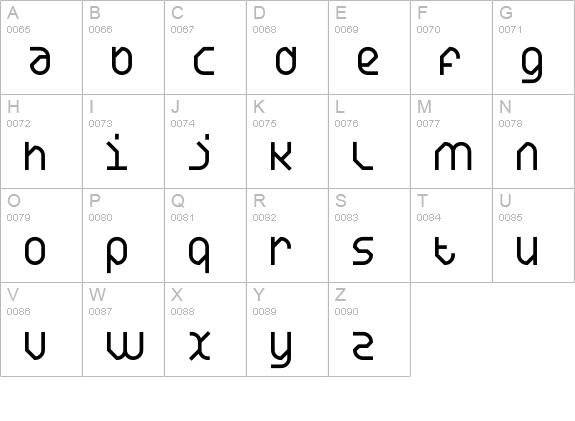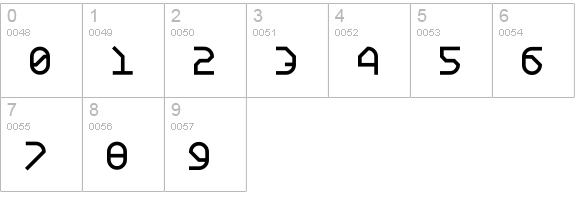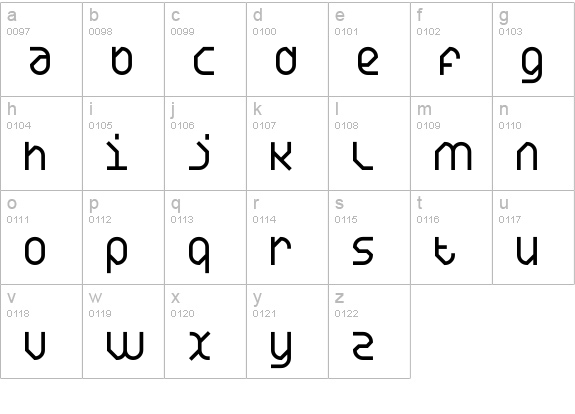
DS Yakuti55 Font Details
DS Yakuti55 is a beautifully crafted font that exudes elegance and sophistication. With its sleek lines and modern design, this font is perfect for adding a touch of class to any project. Whether you're creating a logo, designing a website, or working on a print project, DS Yakuti55 is sure to make a lasting impression. What makes DS Yakuti55 even more appealing is that it is available for free download at FontsMarket.com. This means that you can easily access this stunning font and use it in your projects without any cost. Don't miss out on the opportunity to enhance your designs with the timeless beauty of DS Yakuti55 - download it for free today!